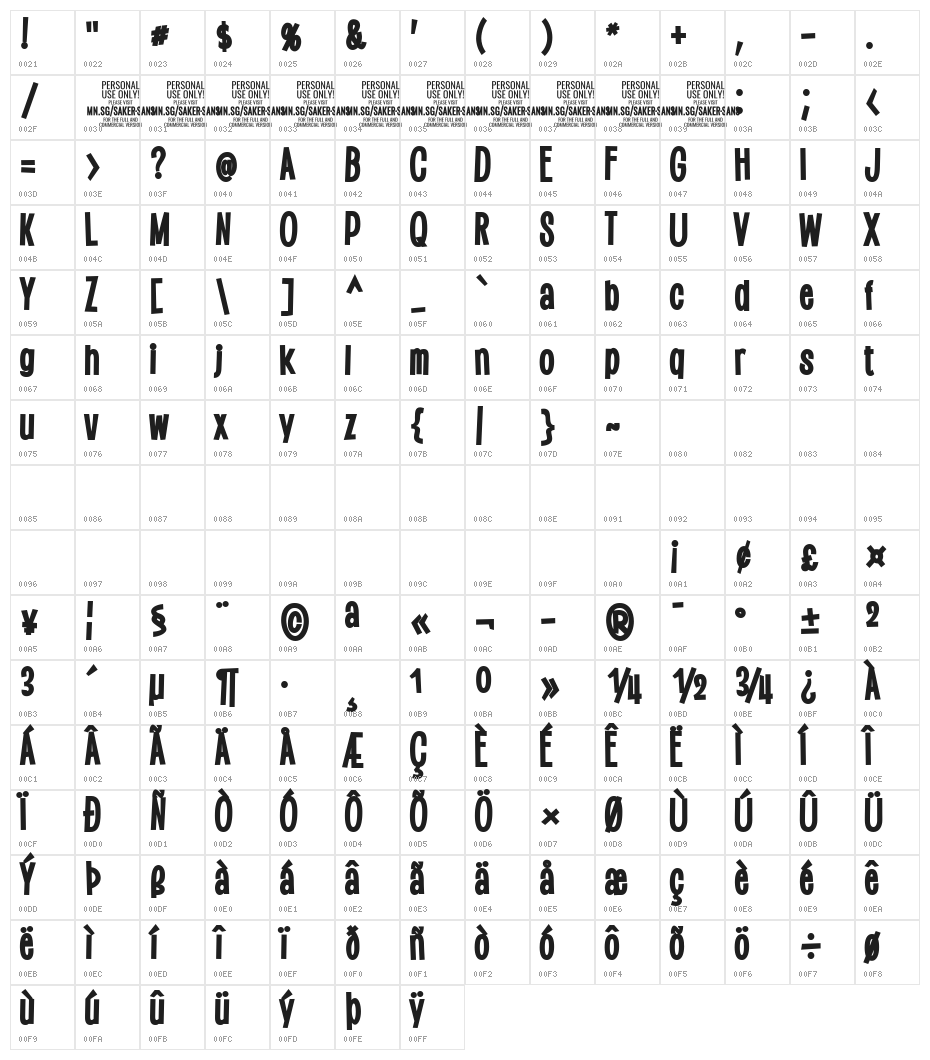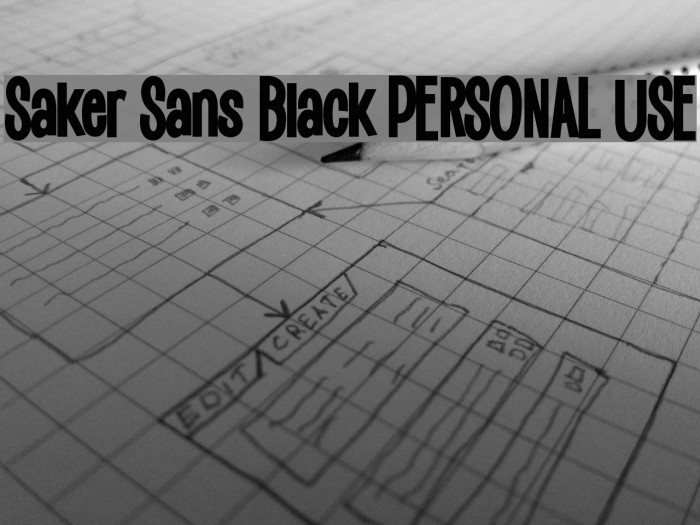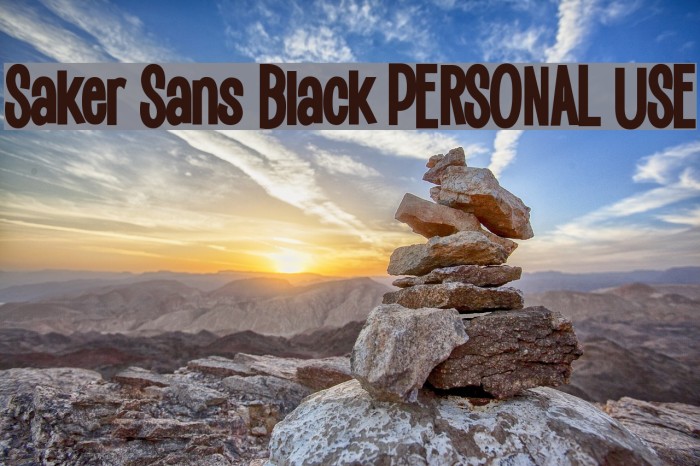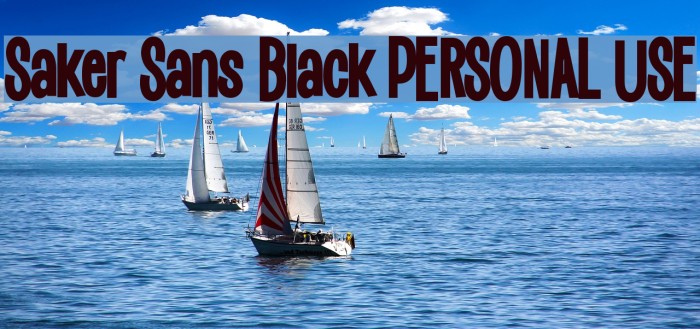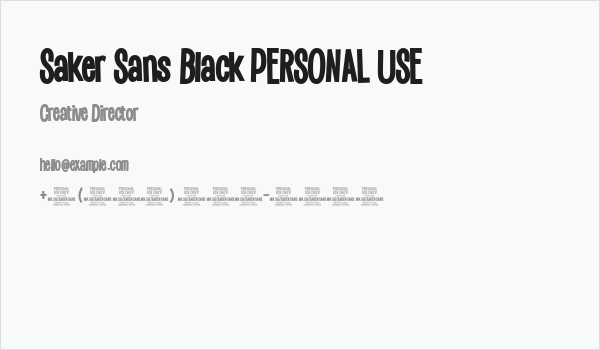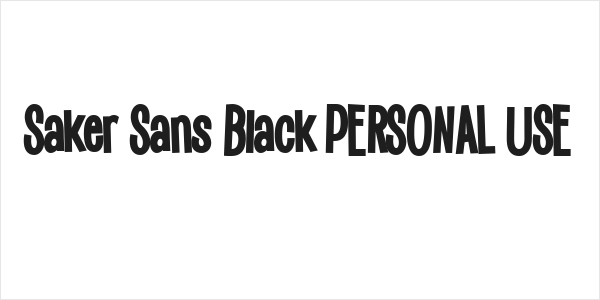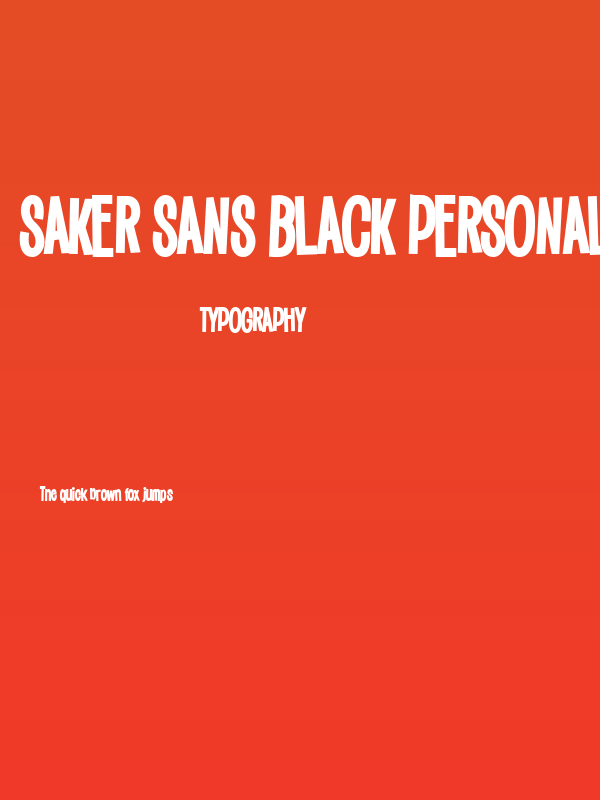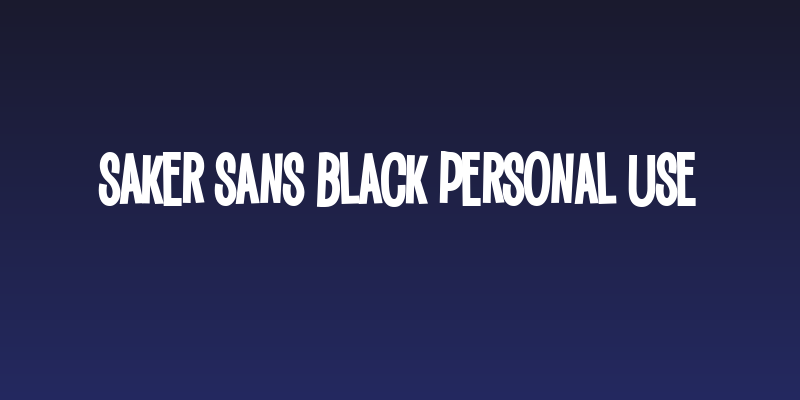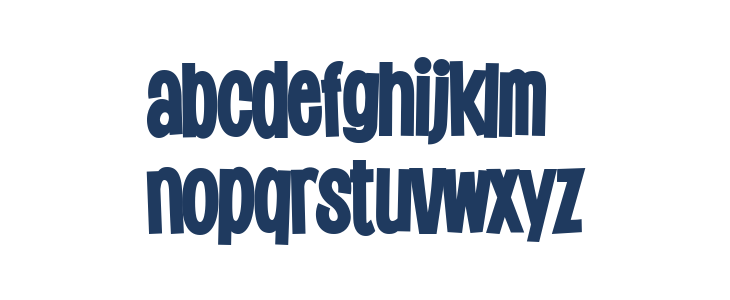
Saker Sans Black PERSONAL USE Font
Saker Sans Black PERSONAL USE Description
This font features a bold and impactful design, characterized by its thick strokes and strong presence. The uppercase and lowercase letters maintain a consistent weight, creating a uniform appearance. The characters are tightly spaced, enhancing the font's compact and powerful look. The style is modern and sans-serif, making it suitable for attention-grabbing headlines and statements. The numerals and special characters are designed to match the boldness of the alphabet, ensuring a cohesive look across all text elements.
| Proposed Projects | Ideal for branding, posters, headlines, and any design requiring a strong visual impact. |